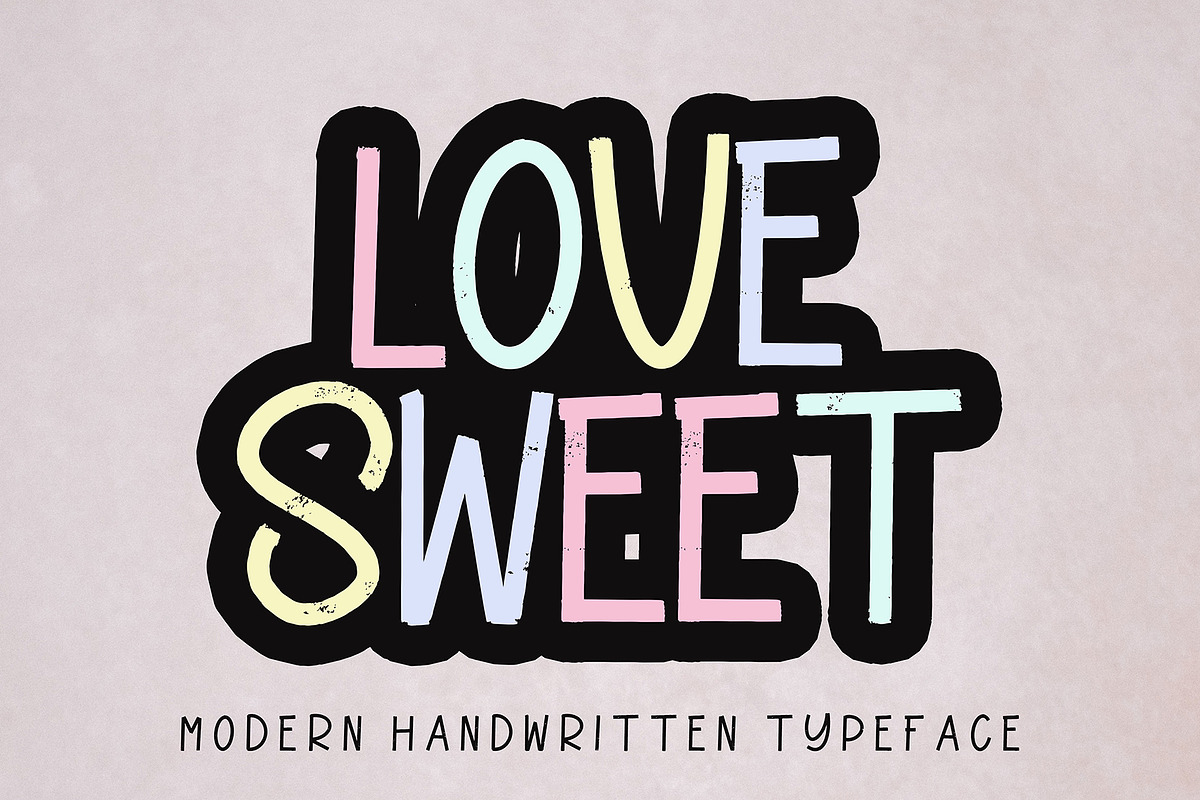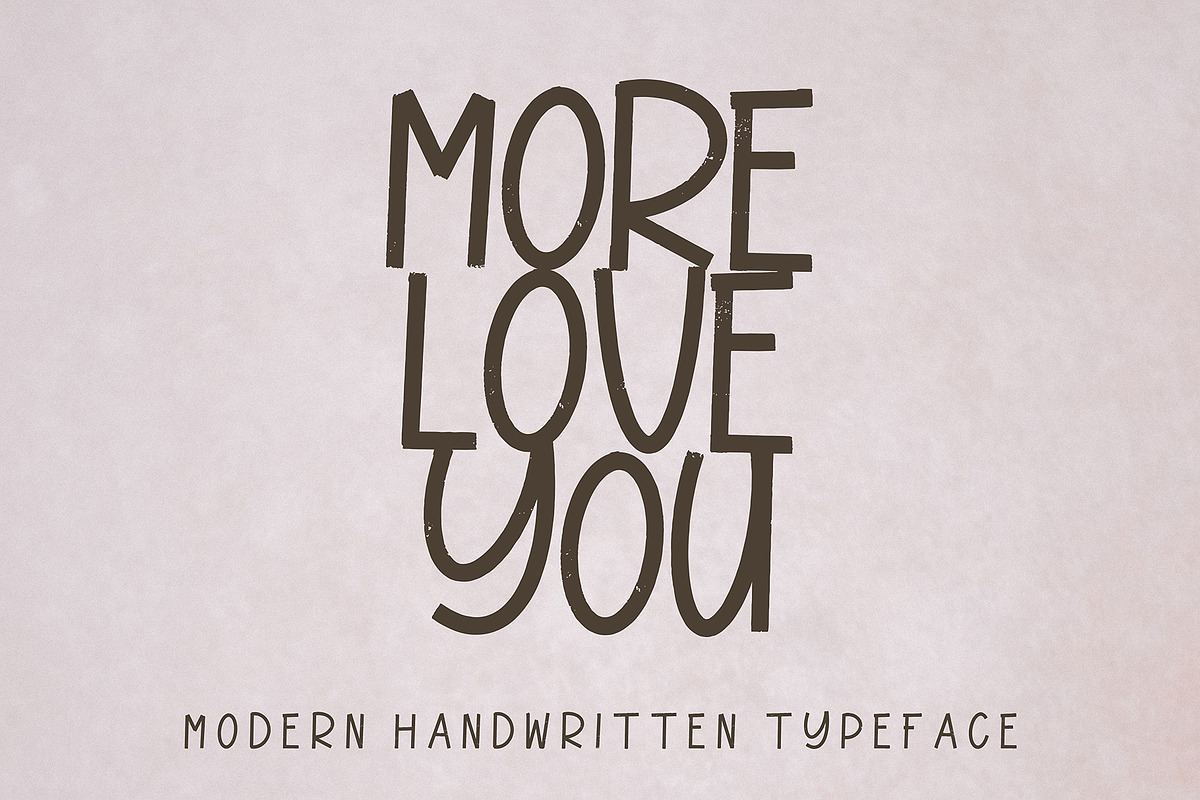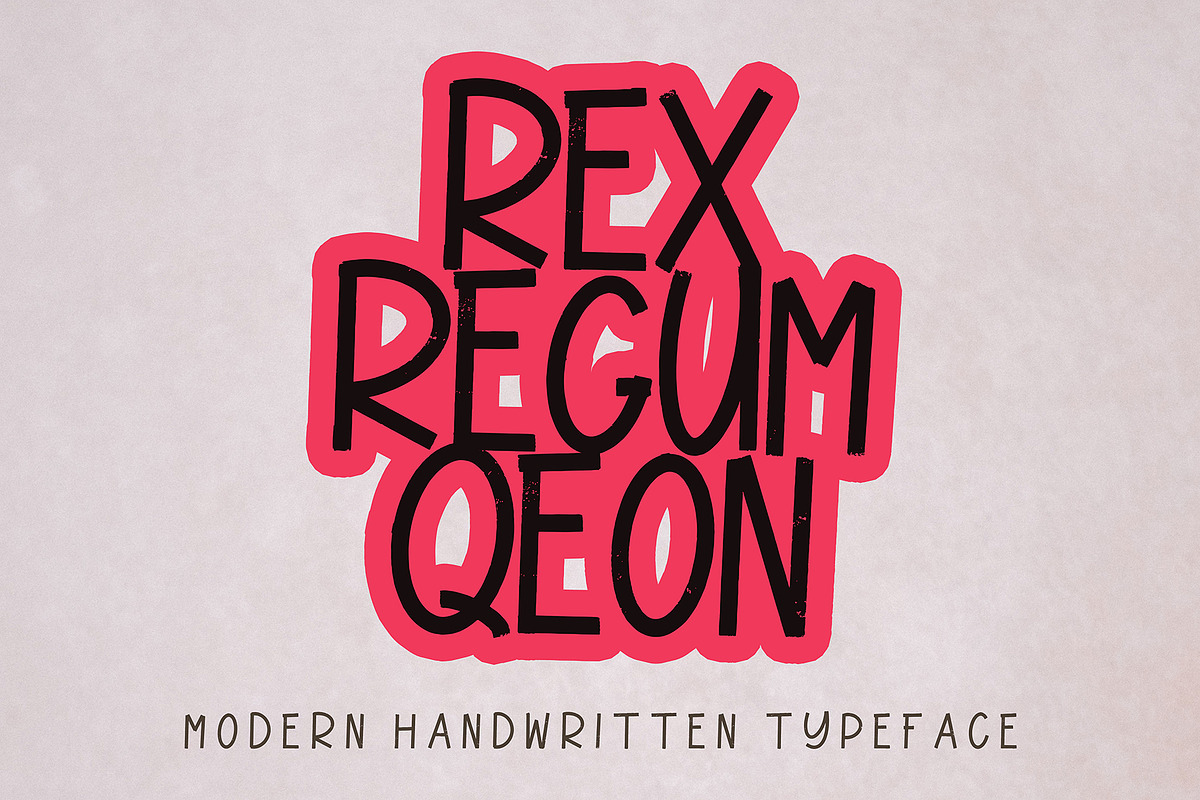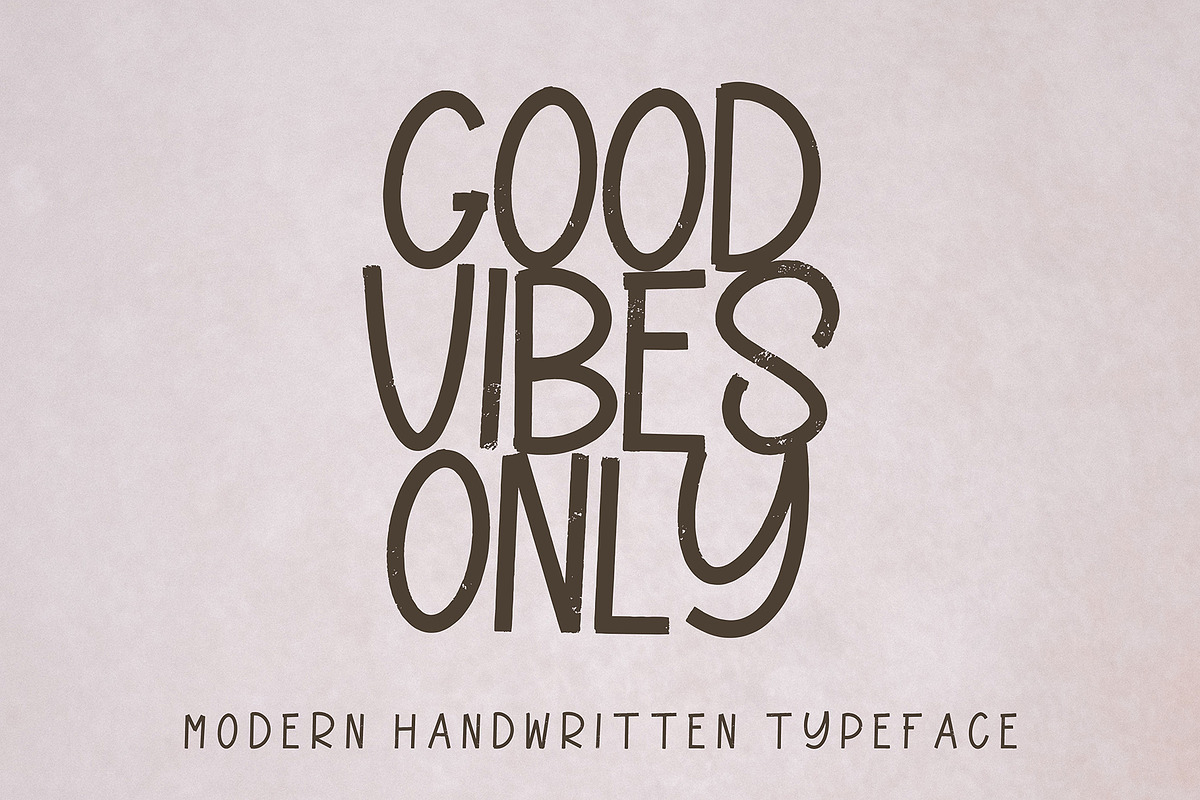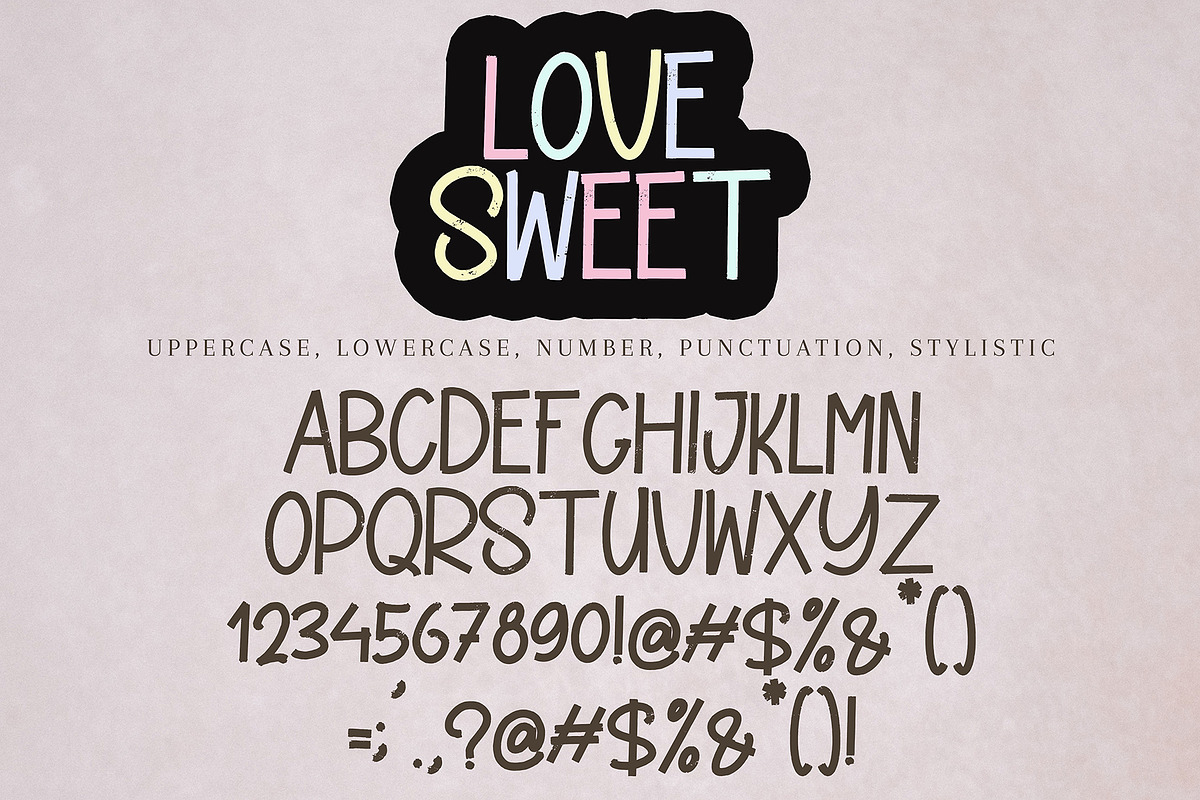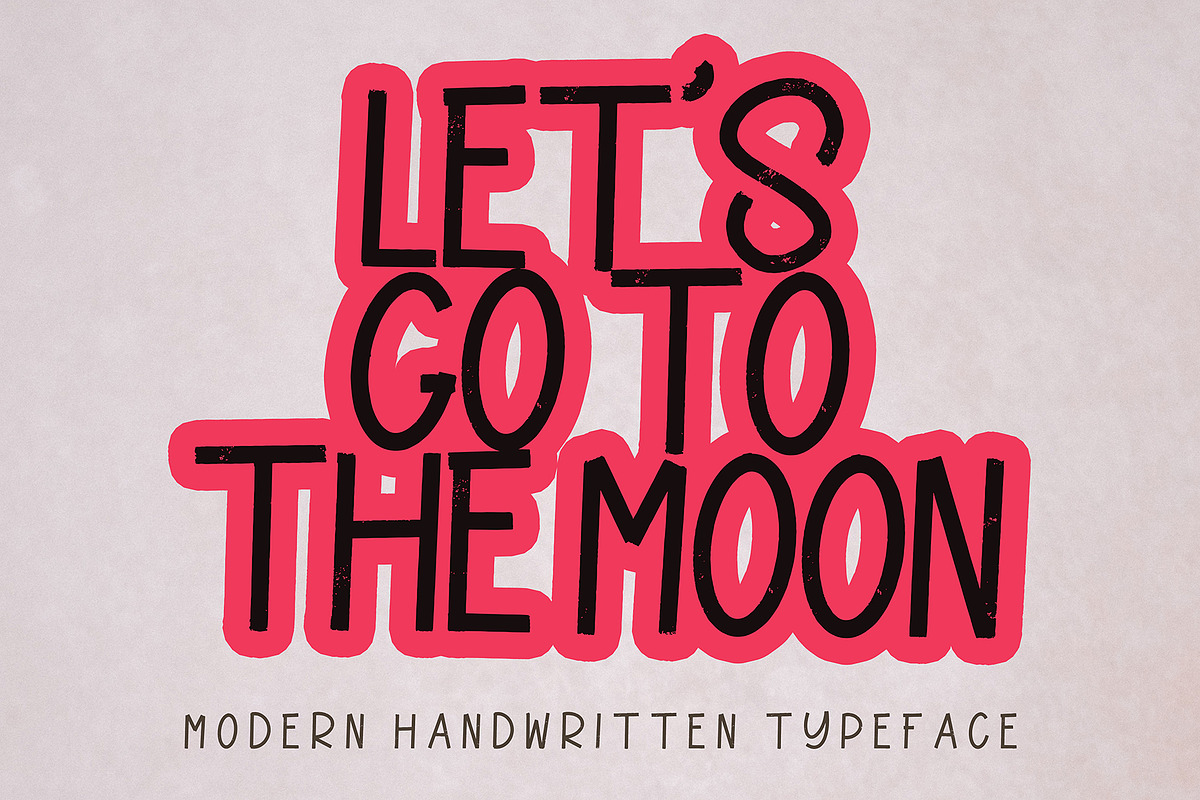
Love Sweet
Love Sweet with new style, this font will perfect for many different project ex: quotes, logo, blog header, poster, banding, letter, invitation, stationery, etc...